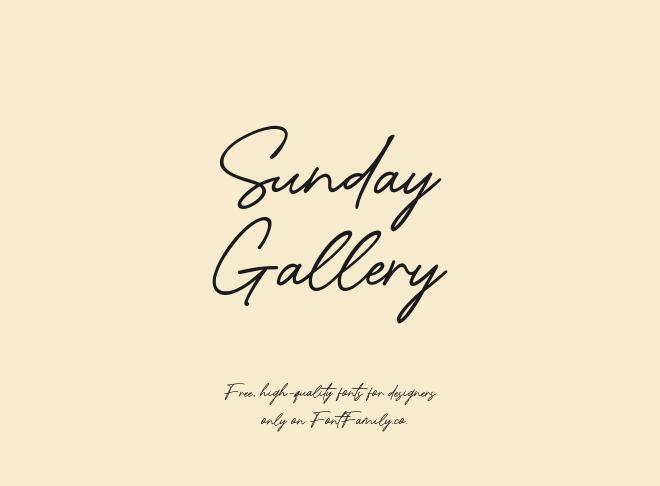
Sunday Gallery Font
Introducing Sunday Gallery Font - a modern, playful, and rustic handwritten typeface that exudes charm and character. Its unique letterforms make it stand out, while retaining a friendly and accessible feel. This versatile font is perfect for everything from branding and logo designs to invitations, signage, and social media posts. With its modern touch, Sunday Gallery Font brings a fresh twist to rustic design, making it a great alternative to more traditional handwritten fonts. Its decorative elements add a fun and creative flair to your design projects. The font is easy to use and works well in a variety of design contexts, making it a valuable addition to any designer's toolkit.